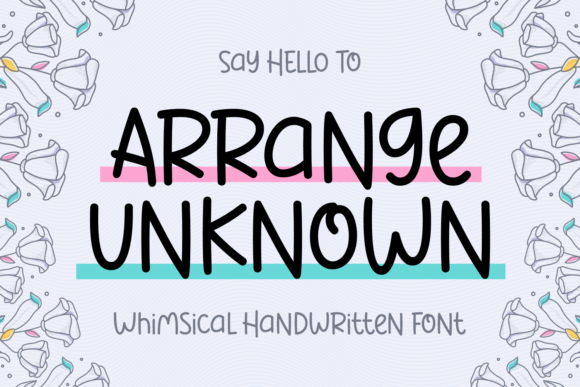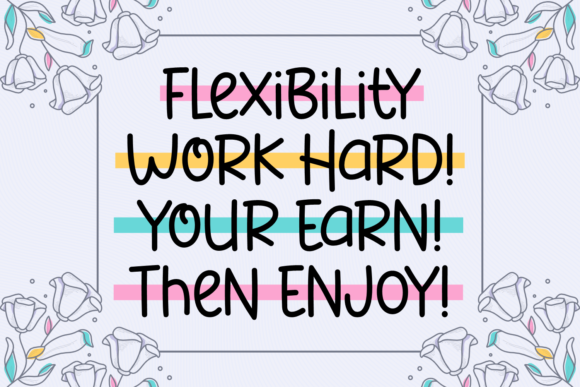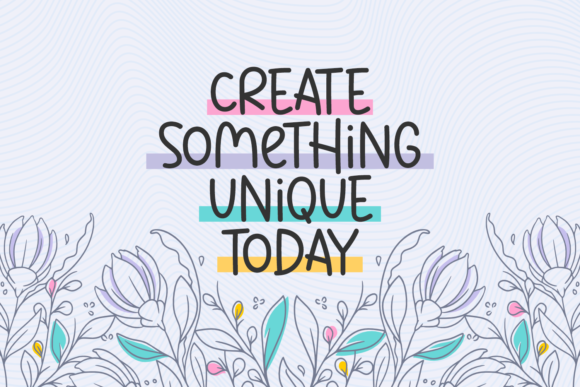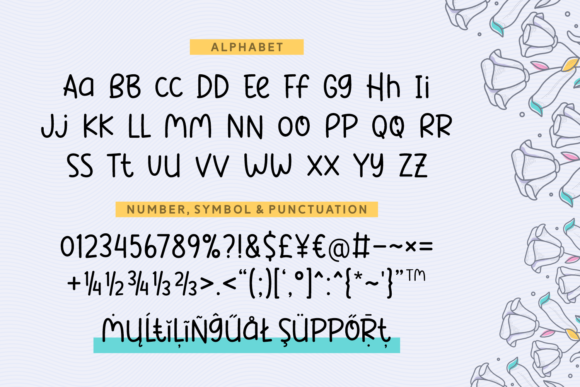
Arrange Unknown Font
About Arrange Unknown Font
“Arrange Unknown is a delightfully cheerful and whimsical handwritten font, carefully crafted to infuse a friendly and inviting charm into a variety of creative projects. This versatile typeface is an ideal choice for enhancing the visual appeal of storybooks, book covers, posters, advertisements, social media posts, apparel designs, and various other items.
With its playful and warm aesthetic, Arrange Unknown effortlessly brings a lighthearted touch to your designs, creating a welcoming atmosphere that captivates the audience. Whether you’re working on a children’s book, promotional materials, or personal projects, this font adds a distinctive character that resonates with creativity and joy.
The carefully designed characters of Arrange Unknown lend themselves well to storytelling, making it a perfect companion for narratives and visually engaging content. Its handwritten style imparts a sense of authenticity and approachability, making your text feel personal and relatable.
From the vibrant pages of storybooks to eye-catching posters and social media graphics, Arrange Unknown adapts seamlessly to different mediums, ensuring a harmonious and cohesive design across various platforms. Its versatility allows you to experiment with layouts, colors, and sizes, giving you the freedom to express your creativity in unique ways.
Make a lasting impression with Arrange Unknown as it effortlessly combines style and substance. Elevate your projects with this charming font, turning ordinary designs into extraordinary visual experiences that leave a lasting impact on your audience. Embrace the whimsical spirit of Arrange Unknown and watch as it transforms your creative endeavors into vibrant and memorable works of art.”